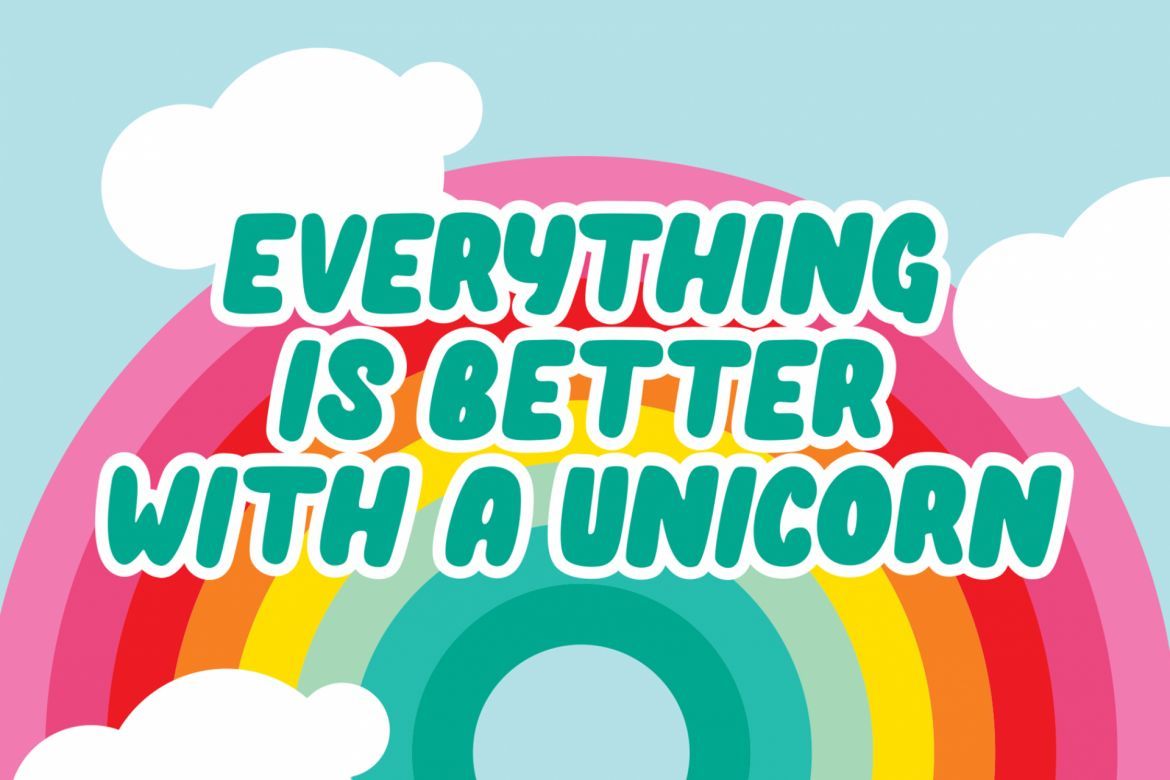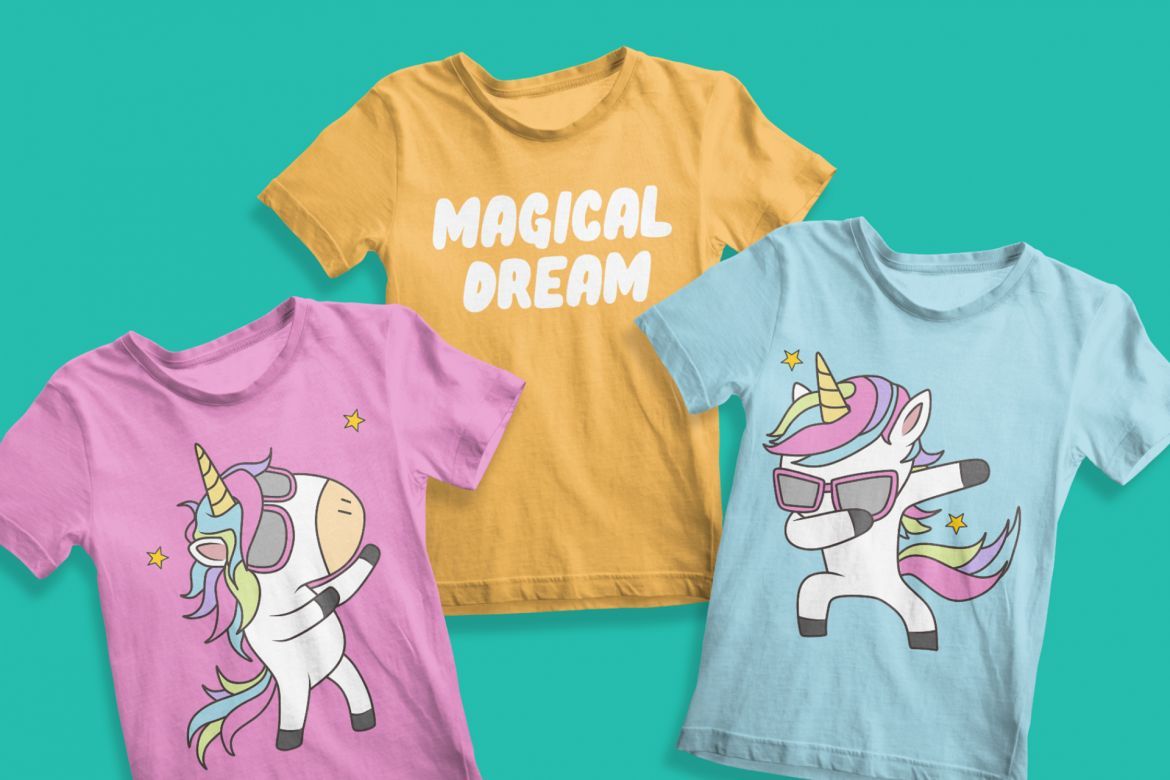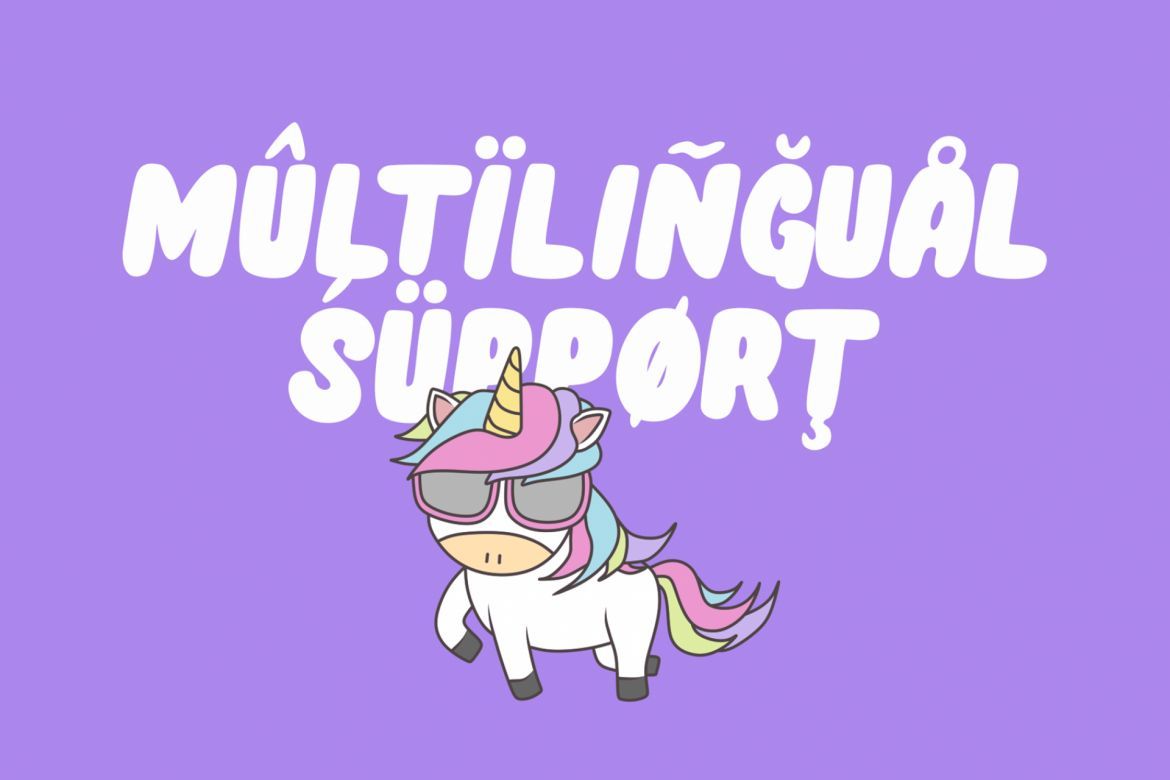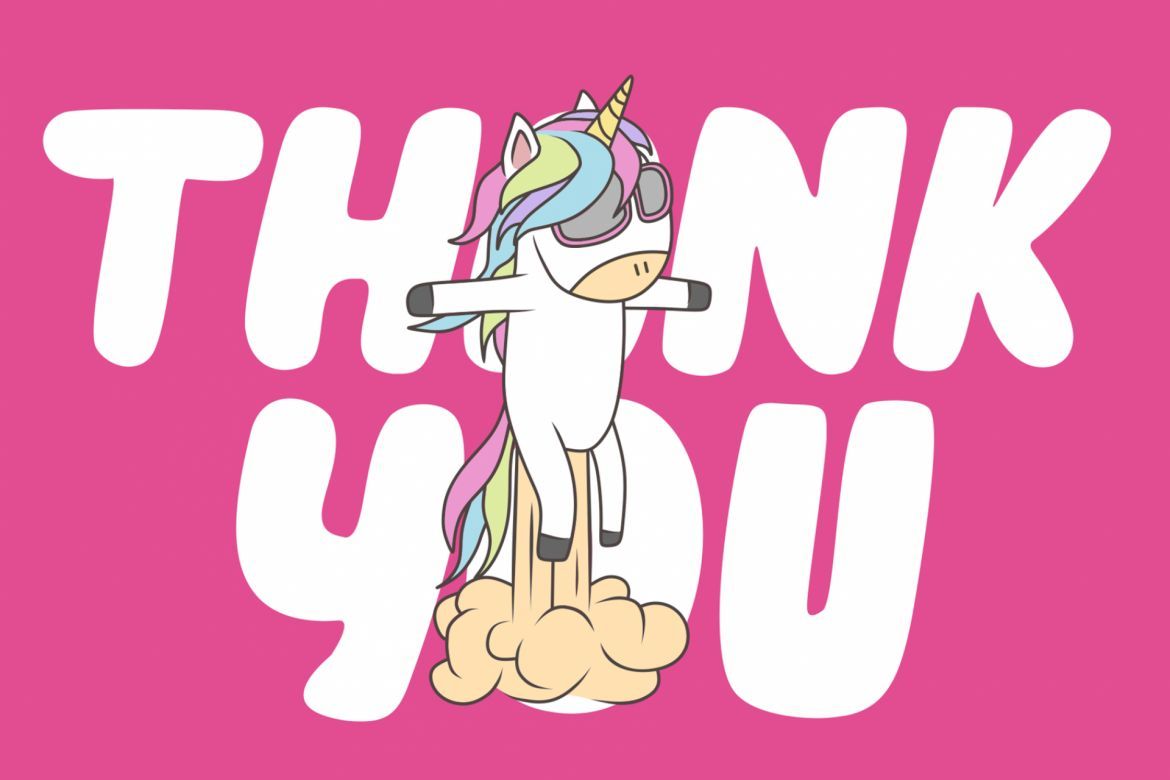
Unicorn Pop Font
Unicorn Pop is a cute display font that is inspired by a lovely magical unicorn.
Unicorn Pop comes with an awesome illustration, make it very perfect to use for quotes, logotype, badges, labels, packaging, t-shirt, or simply use it in your next design project.